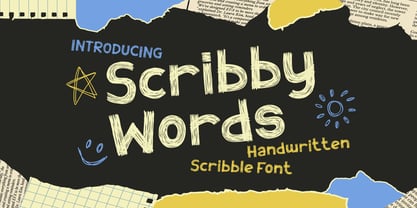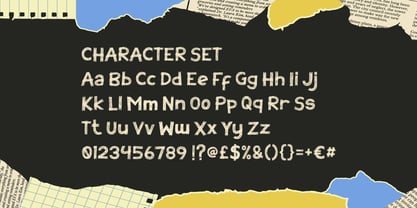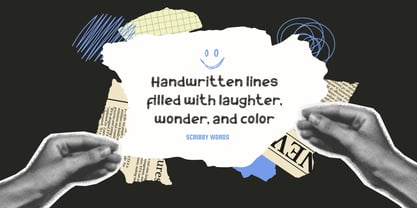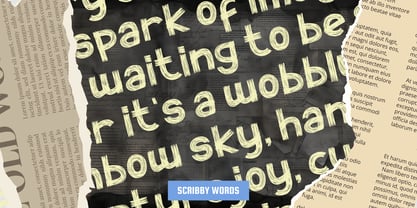
Scribby Words
by Shanaf
The Scribby Words Font Family was designed by Yesie Erma Yunita and published by Shanaf. Scribby Words contains 1 styles. More about this family
Scribby Words Handwritten Scribble Font is a joyful blend of doodle charm and artistic flair, perfect for adding a playful touch to your projects. Its bold yet casual strokes mimic the look of energetic hand-drawn scribbles, giving each letter a lively, human feel. The irregular line textures make the font feel organic and approachable, making it a great choice for kid-friendly designs, whimsical branding, or DIY-style projects. Every character is carefully crafted to retain readability while showcasing unique, sketch-like details.
This font shines in applications where personality and creativity matter most. From posters, stickers, and book covers to packaging, greeting cards, and social media graphics, Scribby Words adds warmth and fun. The combination of uppercase and lowercase letters, along with numbers and symbols, ensures versatility for various layouts. Whether you’re designing playful branding, crafting handmade invitations, or adding a quirky headline to your work, Scribby Words brings color, joy, and authenticity to every project.